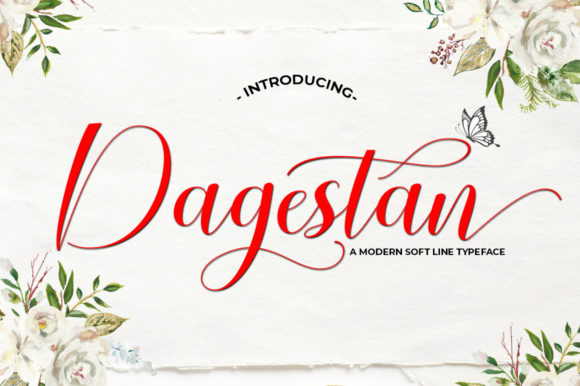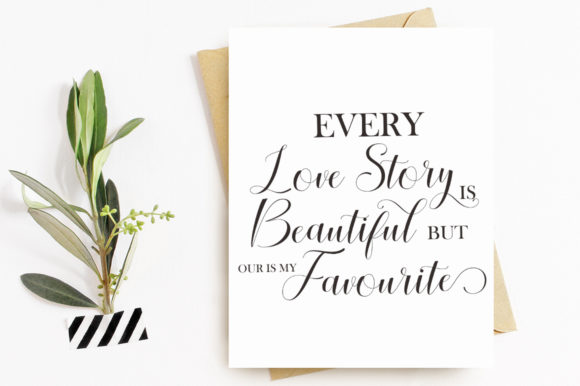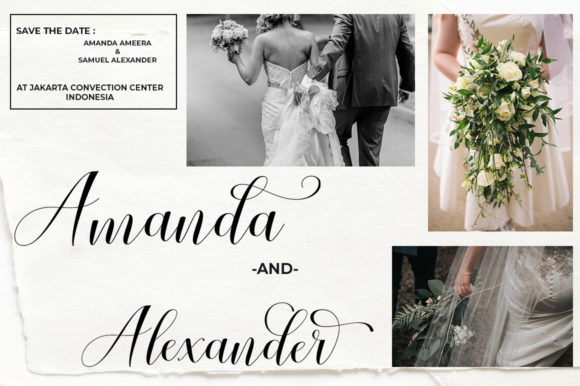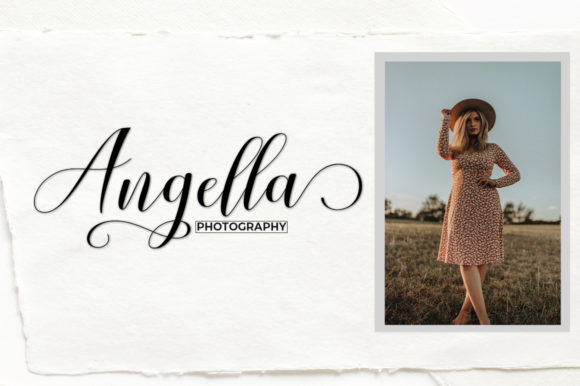
Dagestan Script Font
About Dagestan Script Font
Dagestan is a modern script font that will give your next designs a clean look.
This font is casual and beautiful with swash.
Can be used for various purposes such as logos, product packaging, wedding invitations, branding, headlines, signage, labels, signatures, book covers, posters, quotes, and more.